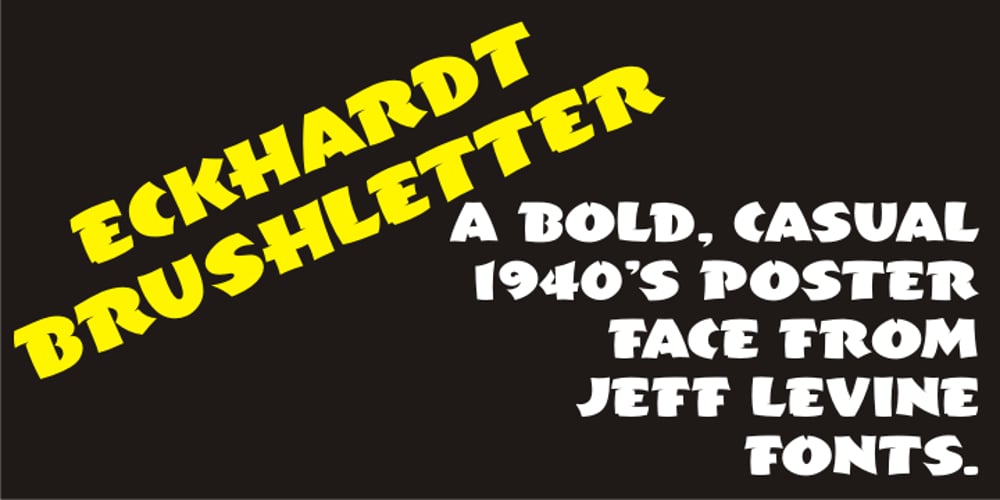
Eckhardt Brushletter JNL Font Family was designed by Jeff Levine and published by Jeff Levine. Eckhardt Brushletter JNL contains 1 styles and family package options. The wealth of vintage hand-lettering styles found in a 1941 edition of the Speedball® Lettering Pen instruction book has allowed Jeff Levine to re-draw a number of them in digital format for today’s designers. As with other fonts in the Eckhardt Series of sign painter-inspired styles, this font is named in honor of Jeff’s good friend Albert Eckhardt, Jr. Al was quite the talented sign writer, and ran Allied Signs in Miami, Florida from 1959 until his passing.